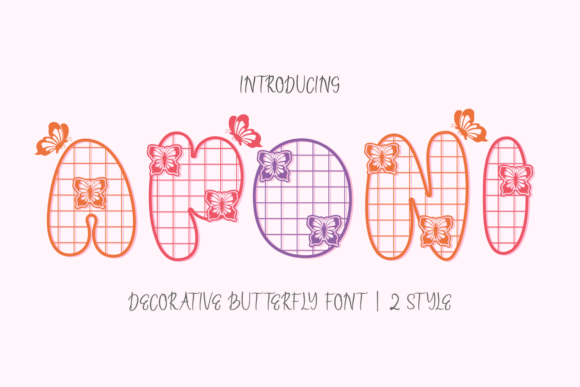
Aponi Font: Add a Touch of Whimsy to Your Typography
Are you looking for a font that can bring a sense of playfulness and elegance to your designs? Look no further than Aponi, a charming decorative font that combines the beauty of nature with a touch of fantasy. Inspired by the delicate flight of butterflies, Aponi features two delightful styles that are perfect for a wide range of creative projects.
What is Aponi Font?
Aponi is a decorative font that features two distinct styles: a playful outline version and a bold, solid version. The outline version boasts a delicate grid pattern, while the solid version makes a more impactful statement. Each letter is adorned with intricate butterfly motifs, lending a sense of airy elegance and joyful movement to your typography.
Key Features of Aponi Font
- Whimsical Design: Aponi’s unique design is inspired by the flight of butterflies, bringing a sense of playfulness and elegance to your typography.
- Two Delightful Styles: The font features two distinct styles: a playful outline version and a bold, solid version, allowing you to choose the perfect look for your project.
- Intricate Butterfly Motifs: Each letter is adorned with intricate butterfly motifs, adding a touch of airy elegance and joyful movement to your typography.
- Rounded, Friendly Shapes: Aponi’s rounded, friendly shapes evoke a feeling of springtime bliss and creative freedom.
- Vibrant, Multi-Colored Palette: The font’s vibrant, multi-colored palette adds a pop of color to your designs, making them truly stand out.
Perfect for Creative Projects
Aponi is perfect for projects that require a touch of fantasy and a handcrafted feel. Some ideal uses for this font include:
- Children’s Books: Aponi’s playful design and whimsical feel make it perfect for children’s books, adding a touch of magic to your storytelling.
- Greeting Cards: The font’s elegant and airy feel makes it ideal for greeting cards, adding a touch of sophistication to your designs.
- Party Invitations: Aponi’s playful and vibrant design makes it perfect for party invitations, setting the tone for a fun and festive celebration.
- Bohemian-Inspired Businesses: The font’s eclectic and free-spirited vibe makes it perfect for branding and marketing materials for bohemian-inspired businesses.
Why Choose Aponi Font?
With so many fonts to choose from, why should you choose Aponi? Here are just a few reasons:
- Unique Design: Aponi’s unique design sets it apart from other fonts, making it a great choice for designers looking to add a touch of personality to their work.
- Versatility: The font’s two distinct styles and range of characters make it versatile and easy to use for a wide range of projects.
In conclusion, Aponi is a charming decorative font that brings the beauty of nature to your typography. With its whimsical design, two delightful styles, and range of characters, it’s perfect for projects that require a touch of fantasy and a handcrafted feel. Whether you’re working on a children’s book, greeting card, party invitation, or branding for a bohemian-inspired business, Aponi is sure to add a touch of magic to your designs.